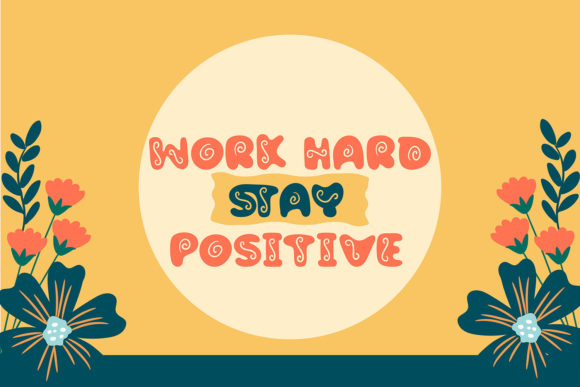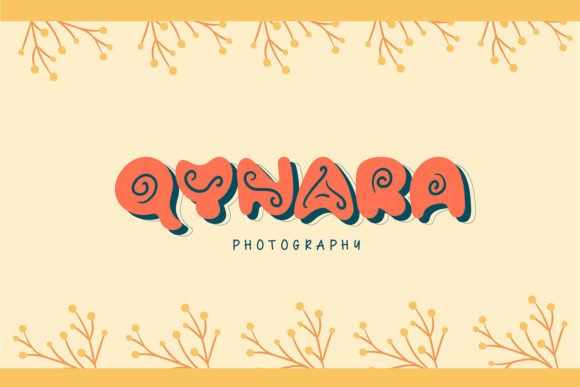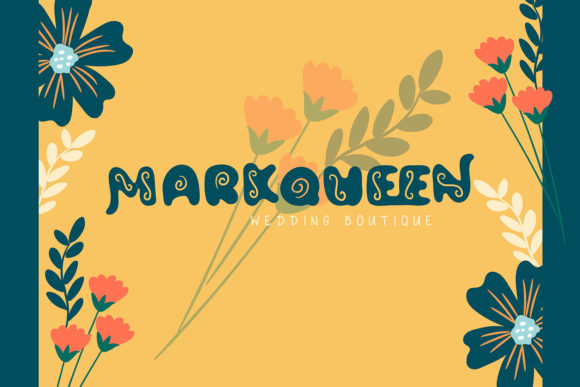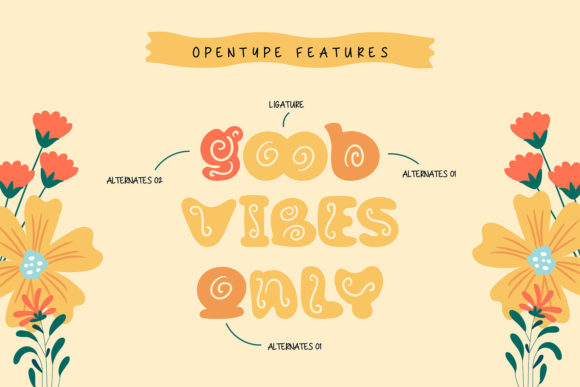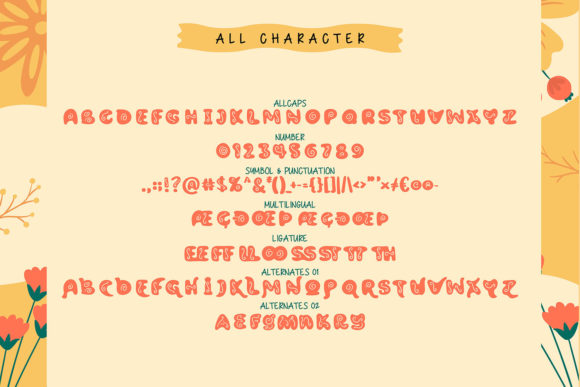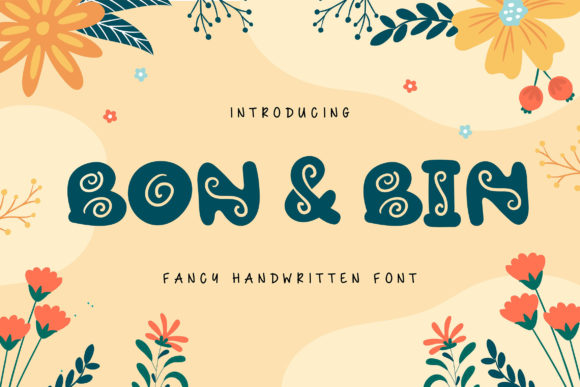
Introducing Bon & Bin Font: The Ultimate Playful Decorative Font for Children-Themed Designs
Are you a designer or crafter looking for a unique and playful font to add a touch of whimsy to your children-themed designs? Look no further than Bon & Bin Font! This cool and decorative font is perfect for creating eye-catching and engaging designs that kids will love. In this article, we’ll dive into the features and benefits of Bon & Bin Font, and explore how you can use it to take your designs to the next level.
What Makes Bon & Bin Font So Special?
Bon & Bin Font is a one-of-a-kind decorative font that stands out from the crowd. Its playful and unique design makes it perfect for children-themed designs, such as kids’ party invitations, children’s book illustrations, and educational materials. The font’s playful and carefree vibe is sure to delight kids and parents alike.
One of the best features of Bon & Bin Font is that it’s PUA (Private Use Area) encoded. This means that you can access all of the glyphs and swashes with ease, giving you maximum flexibility and creative control. With PUA encoding, you can easily insert special characters, ligatures, and swashes into your designs, making them truly unique and eye-catching.
Perfect for Children-Themed Designs
Bon & Bin Font is specifically designed with children-themed designs in mind. Its playful and whimsical design makes it perfect for:
- Kids’ party invitations and decorations
- Children’s book illustrations and covers
- Educational materials, such as worksheets and activity sheets
- Kids’ clothing and accessory designs
- Playful posters and flyers
Why Pair Bon & Bin Font with Bright Colors?
To really make your designs pop, pair Bon & Bin Font with bright and bold colors. The font’s playful design looks amazing with vibrant colors, creating a visually appealing combination that’s sure to grab attention. Whether you’re designing for print or digital, the combination of Bon & Bin Font and bright colors is sure to delight kids and adults alike.
Tips for Using Bon & Bin Font
Here are some tips for getting the most out of Bon & Bin Font:
- Experiment with different font sizes and colors to create visual interest
- Use the font’s glyphs and swashes to add personality to your designs
- Pair the font with bright and bold colors to create a playful look
- Don’t be afraid to get creative and try new things – Bon & Bin Font is designed to be fun and playful!
Bon & Bin Font is a unique and playful decorative font that’s perfect for children-themed designs. With its PUA encoding and access to glyphs and swashes, you have maximum creative control to create eye-catching and engaging designs. Pair the font with bright colors and let your imagination run wild – the possibilities are endless! Whether you’re a designer or crafter, Bon & Bin Font is sure to become a favorite in your collection.